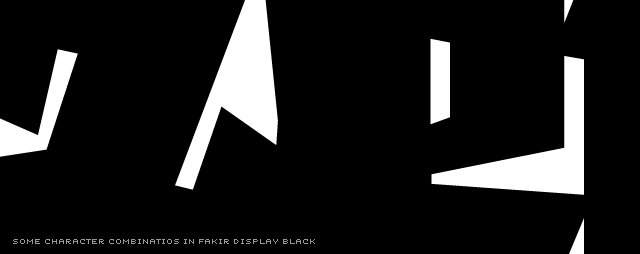
When a blackletter becomes really really black, all that remains are
counters. Because the letters in Fakir Display Black and Black Condensed are
often overlapping*, the spaces between the letters become counter forms. We
took extra care of these white, dynamite-packed areas.
*'biting' in blackletter terminology